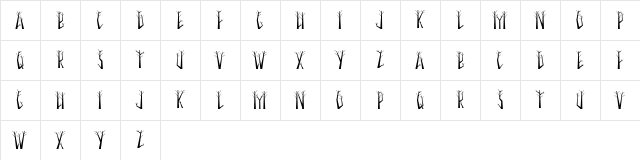
Complete Seasonal Trees glyph index. Displaying only characters natively supported by Seasonal Trees font.
Seasonal is a composed and adaptable typeface that performs quietly and consistently across a wide range of design contexts.